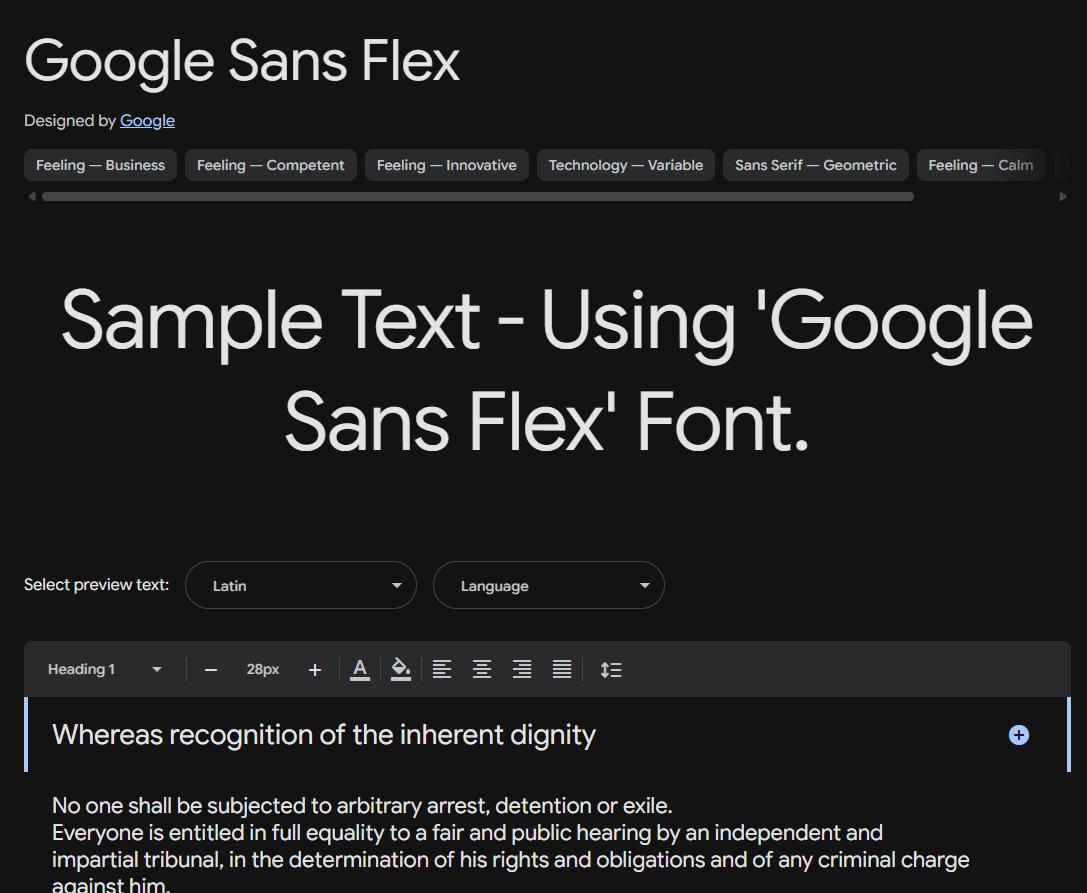
Engineered as the typographic cornerstone of the Material You ecosystem, Google Sans Flex represents a masterclass in fluid interpolation, utilizing a sophisticated six-axis variable architecture-Weight (wght), Width (wdth), Optical Size (opsz), Grade (GRAD), Slant (slnt), and the parametric XTRA axis-to achieve hyper-responsive layout adaptation. Unlike traditional static superfamilies, this single-binary OpenType font leverages delta sets to allow designers to manipulate visual density through Grade without triggering reflow, ensuring semantic integrity across heterogeneous display environments. By synthesizing geometric precision with dynamic optical scaling, Google Sans Flex optimizes legibility from micro-screens to large-format displays, effectively bridging the gap between brand identity and programmatic UI responsiveness within the modern design system hierarchy.
Google Sans Flex represents a sophisticated evolution in digital typography, functioning as a high-performance Variable Font that masterfully interpolates across multiple axes to project an inherently competent and business-oriented aesthetic. By synthesizing the mathematical precision of a Geometric sans-serif with the pragmatic structuralism of a modern Grotesque, the typeface achieves an innovative equilibrium that remains exceptionally calm even under high information density. This architectural versatility utilizes OpenType font variations to modulate weight and width dynamically, ensuring that its clean, authoritative character maintains peak legibility and a professional tone across the entire spectrum of Google's hardware and software ecosystem.
Despite the technical prowess of Google Sans Flex's six-axis variable interpolation and its optimized optical sizing for fluid responsive environments, this typeface remains fundamentally incongruous for heritage-tier luxury branding or high-fidelity archival legalities where typographic friction and historical provenance are paramount. Its hyper-rationalized geometric construction and algorithmic neutrality lack the idiosyncratic terminal flourishes and humanist stroke modulation found in traditional serif faces, making it an aesthetic misfit for sectors like high-end horology or artisanal viticulture that rely on hand-tooled visual cues to signal rarity rather than digital ubiquity. Furthermore, the variable grade and width axes, while beneficial for UI density, can compromise the immutable structural integrity required in notarized physical documents, where the fixed-width rhythmic stability of transitional typefaces provides a psychological anchor of permanence that Google's ephemeral, screen-first architecture is specifically engineered to transcend.
Google Sans Flex features a total of five variable axes that allow designers to fine-tune the typeface's appearance. By leveraging the wght, wdth, opsz, GRAD, and slnt axes, the font achieves thousands of potential instances from a single lightweight font file.
The family includes the standard Weight and Width axes along with Optical Size, Grade, and Slant variations. The inclusion of the GRAD axis is particularly notable because it modifies visual density without altering the physical width of glyphs, preventing layout reflow during state changes.
The font is engineered as a versatile system capable of handling both large display settings and dense text blocks. Its Optical Size (opsz) axis automatically adjusts stroke contrast and aperture size to maintain a high X-height, ensuring legibility whether set at 8pt or 72pt.
While the Weight axis changes the thickness and the width of the characters, the Grade axis increases stroke thickness without shifting the character spacing. This non-reflowing behavior makes Grade ideal for hover states or dark mode transitions where a change in wght would otherwise trigger a cumulative layout shift.
The Weight axis in Google Sans Flex spans from a very thin profile to a heavy, ultra-bold appearance. Specifically, the variable range is mapped from 100 to 1000, providing 900 distinct increments of boldness for precise typographic hierarchy.
The font includes a dedicated Width axis that enables users to squeeze or expand characters to fit specific spatial requirements. The wdth axis typically ranges from 75% to 100%, allowing for significant data density improvements in narrow mobile viewports without sacrificing glyph integrity.
The Optical Size axis modifies the proportions of the typeface to account for the physical size at which the text is displayed. By increasing the aperture and thinning the strokes at smaller opsz values, the font optimizes contrast ratios to reduce ink-clogging effects in low-resolution environments.
Google Sans Flex is purpose-built for the fluid nature of modern mobile and web applications where space is at a premium. Utilizing CSS font-variation-settings allows developers to animate transitions between axes, reducing total page payload by replacing dozens of static files with one highly efficient WOFF2 container.
The typeface provides comprehensive support for a wide range of languages using the Latin script across different global regions. It encompasses the Latin-1 Supplement and Latin Extended-A blocks, ensuring consistent rendering across 100+ languages through localized OpenType features and anchor-based accent placement.